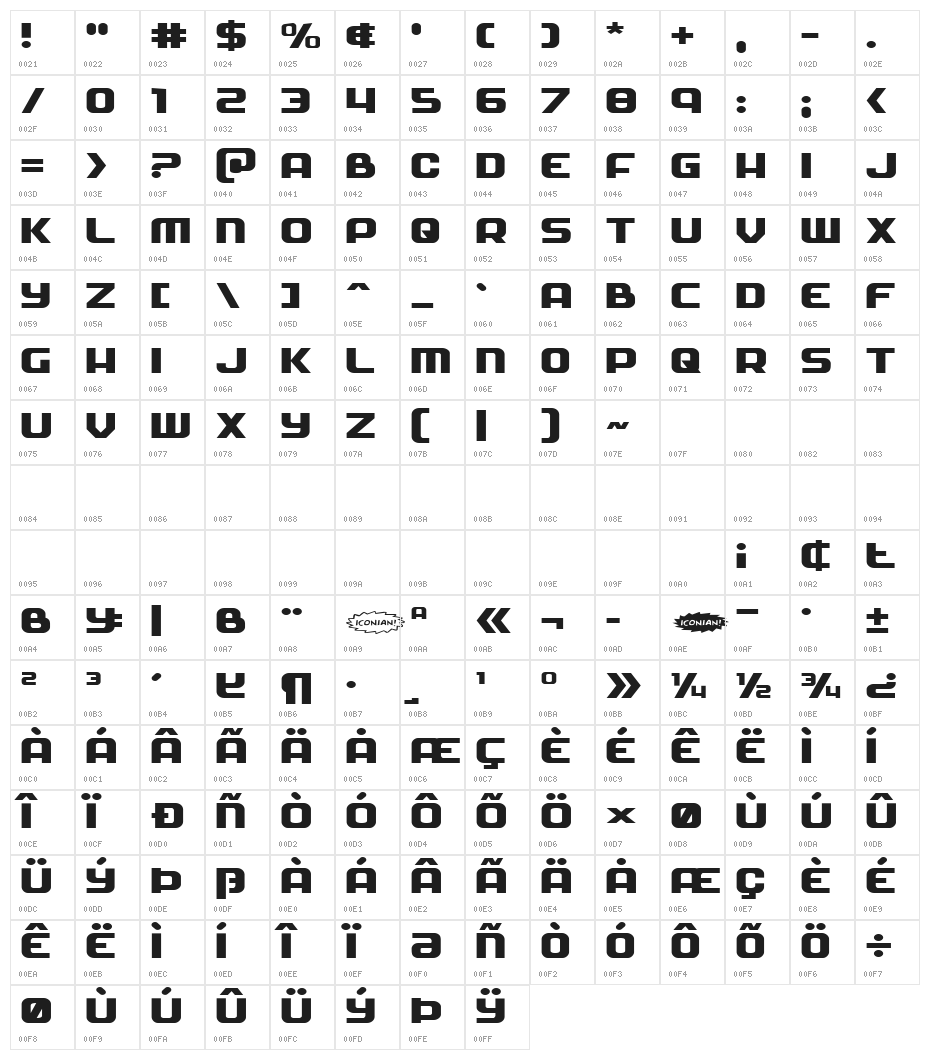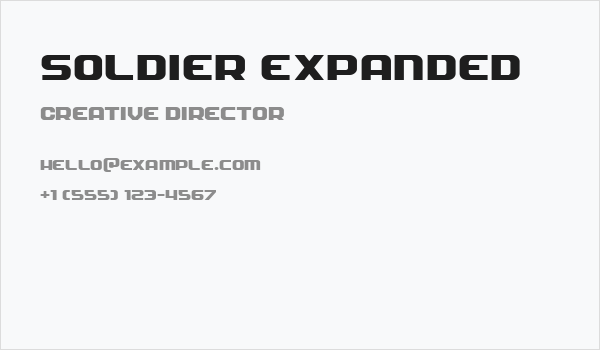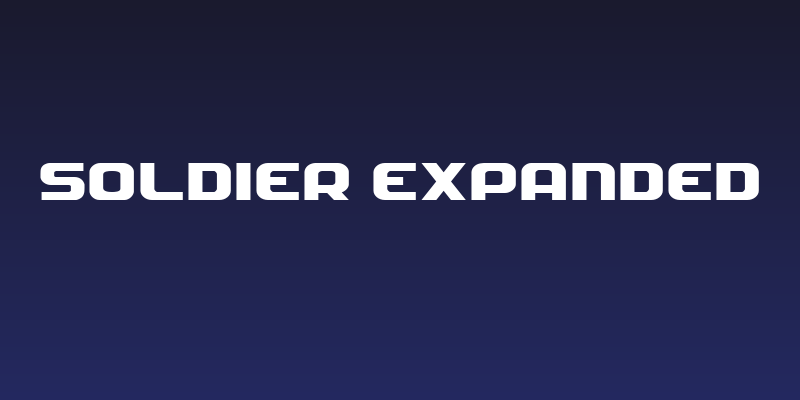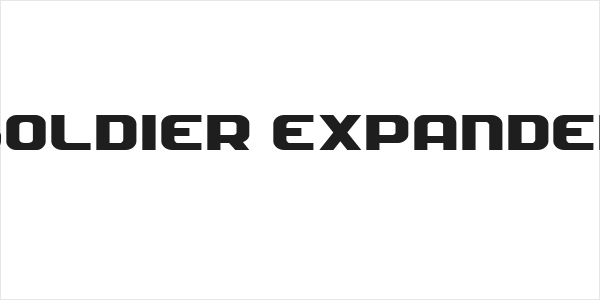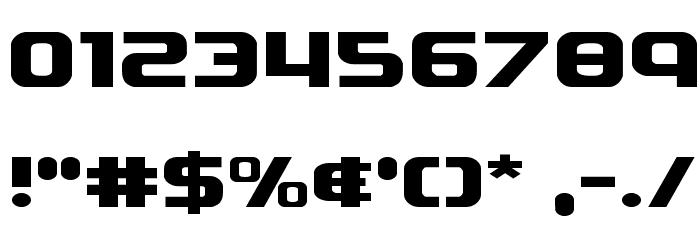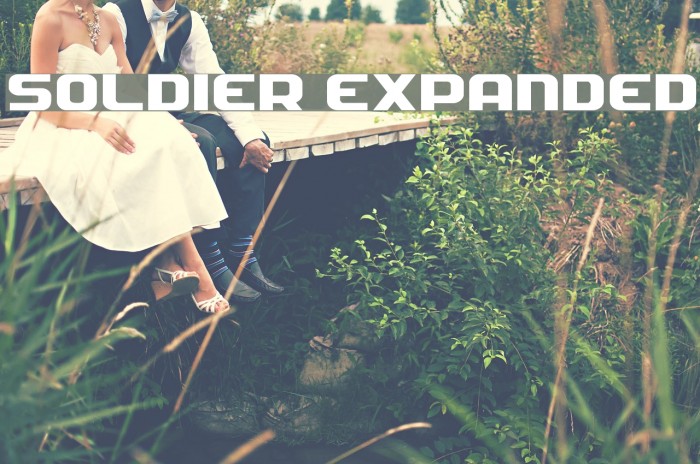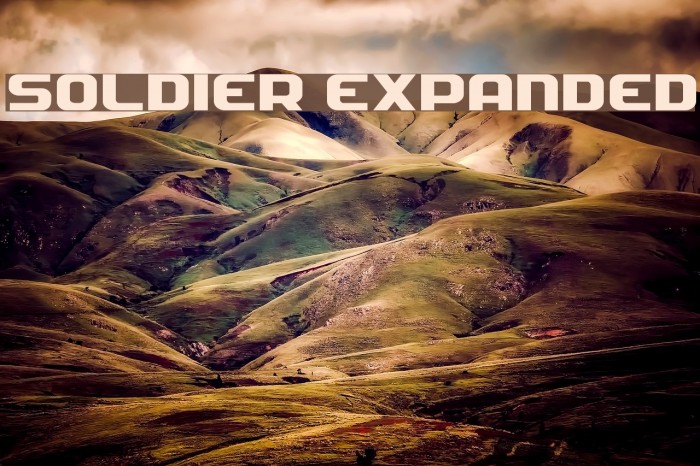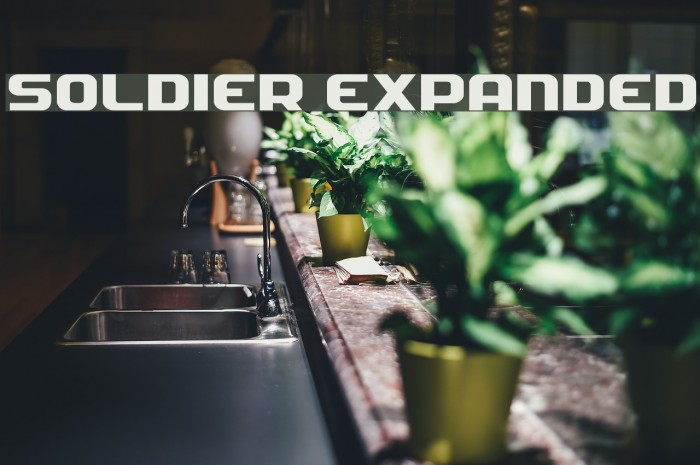
Soldier Expanded Font
Soldier Expanded Description
This font features a bold and robust design with a distinctly modern and industrial feel. The characters are wide and expanded, giving them a commanding presence. Each letter is crafted with sharp, angular edges and a uniform stroke width, contributing to a clean and cohesive appearance. The font's geometric structure and solid form make it highly legible, even from a distance. The numerals and special characters maintain the same bold style, ensuring consistency across all text elements. This font is ideal for projects that require a strong visual impact.
| Use Case | Headlines, Logos, Signage |
| Proposed Projects | Ideal for branding, posters, headlines, and signage that require a strong visual impact. |